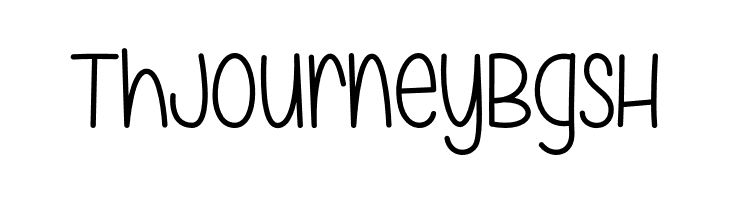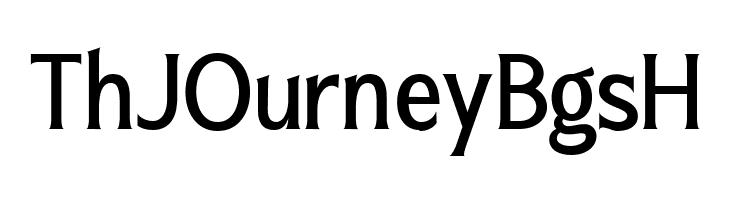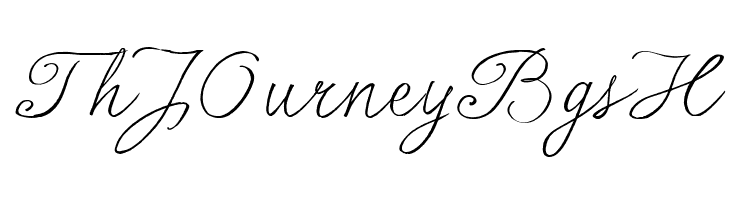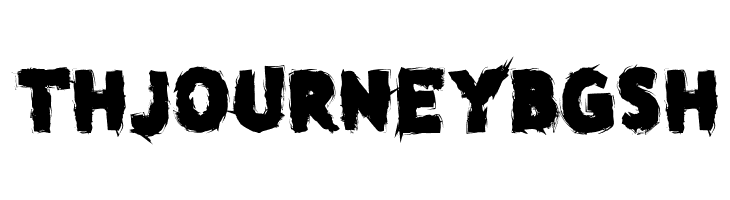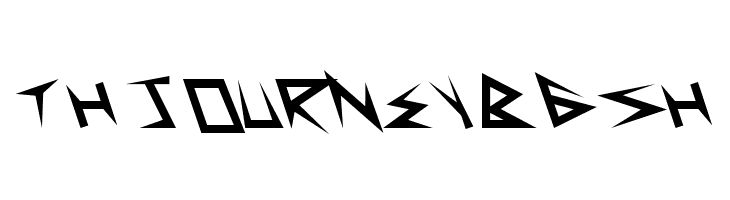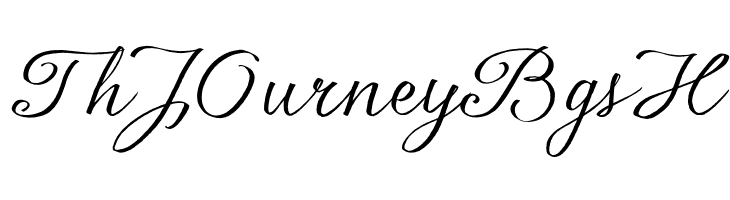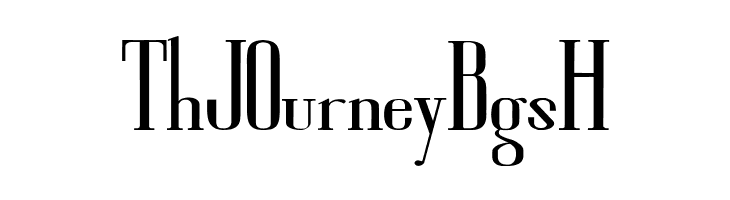
A bold, distressed font with rough, brush-like strokes for an edgy look.
A bold, angular font with sharp, jagged edges and a dynamic style.
A playful, rounded handwritten font with smooth, consistent strokes.
An elegant script font with flowing, cursive strokes and ornate details.
An elegant script font with flowing, cursive letters and sophisticated style.
A tall, elegant font with a modern yet classic appeal.
A playful, hand-drawn font with rounded, whimsical characters.
A playful, hand-drawn font with rounded, elongated characters.
A modern serif font with balanced proportions and moderate contrast.
An elegant script font with flowing, cursive letters and a classic appearance.